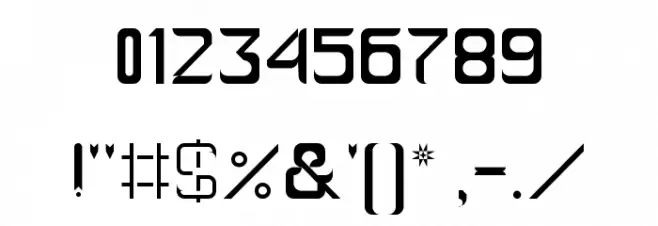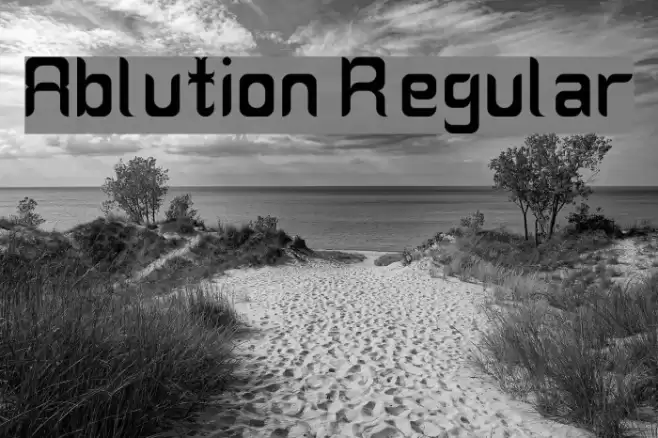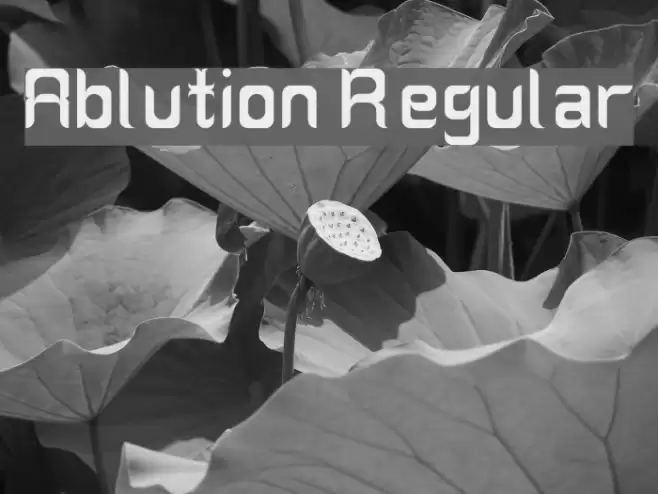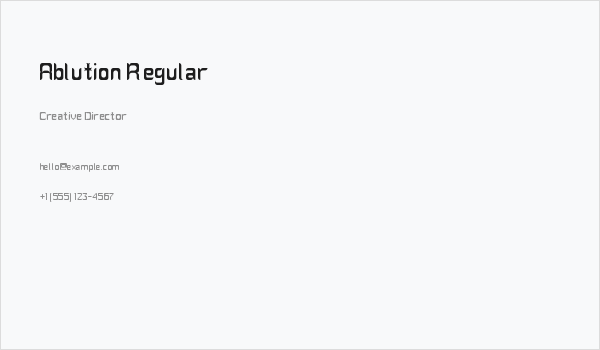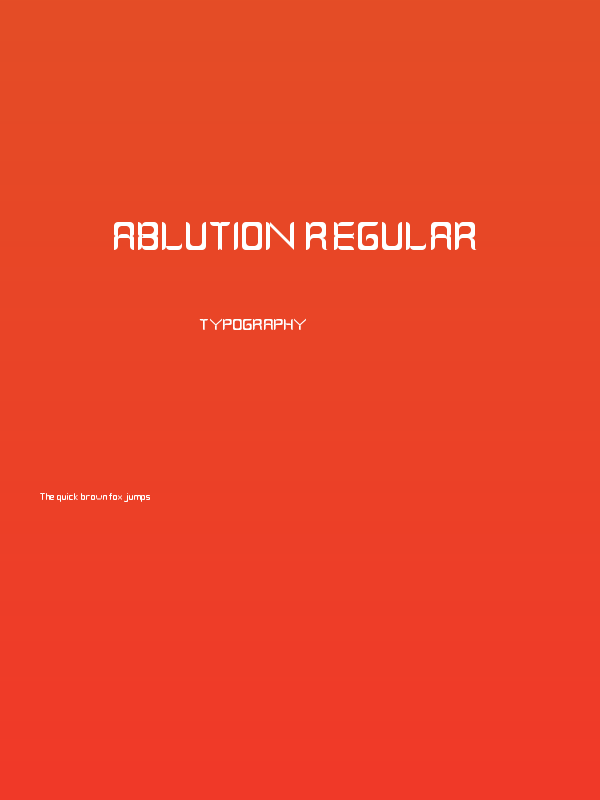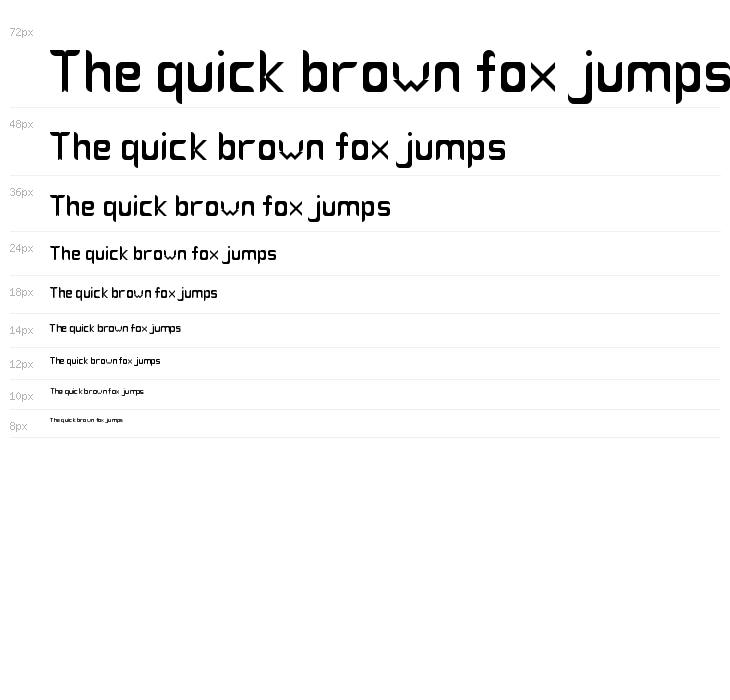
Ablution Regular Font
Ablution Regular Description
This font features a unique blend of geometric and futuristic elements, characterized by its angular and slightly rounded edges. The uppercase letters are bold and structured, with a distinct modern flair that makes them stand out. The lowercase letters maintain a consistent style, offering a harmonious balance between readability and design. The numerals are clear and straightforward, complementing the overall aesthetic. Special characters are designed with the same attention to detail, ensuring a cohesive look across all elements. This font is ideal for projects that require a contemporary and edgy feel.